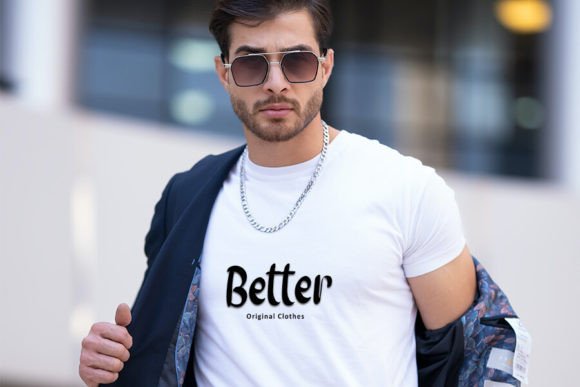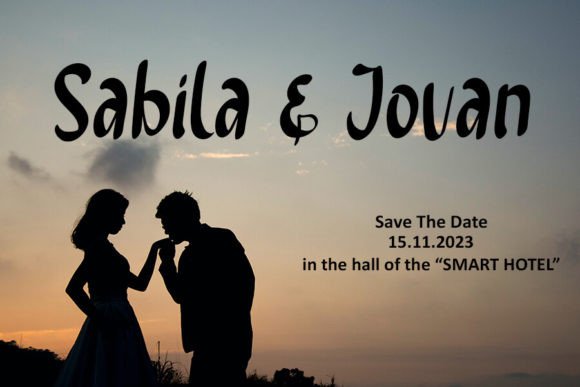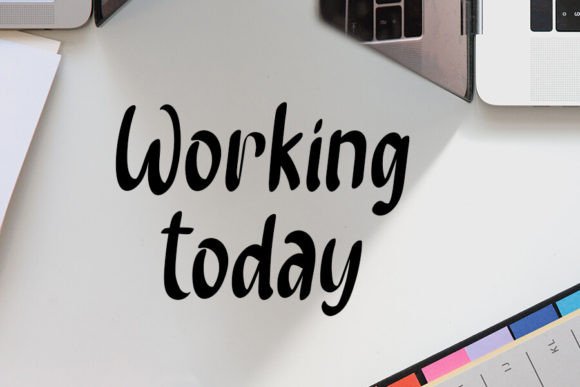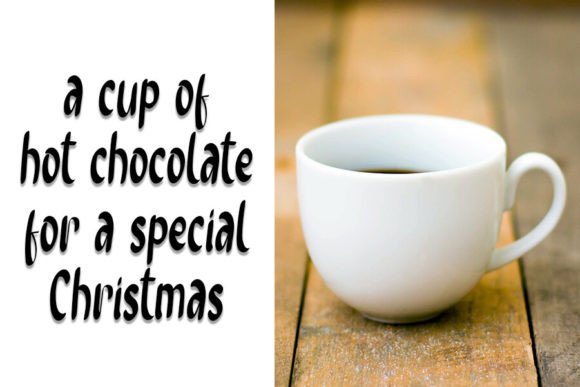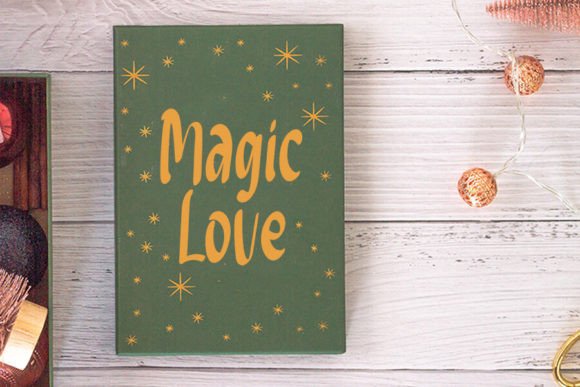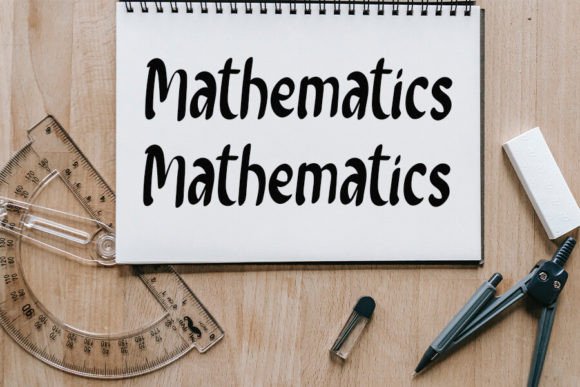
Introducing the Grinch Font: Elevate Your Designs with a Timeless Classic
In the world of typography, fonts play a crucial role in conveying the tone and personality of a design. For designers and crafters looking to add a touch of elegance and sophistication to their projects, the Grinch Font is an excellent choice. This stylish handwritten font boasts a contemporary atmosphere and impeccable form, making it perfect for a wide range of applications.
Inspired by Timeless Classic Calligraphy
The Grinch Font draws inspiration from traditional calligraphy, with a modern twist. Its unique blend of classic and contemporary elements creates a distinctive look that is both refined and stylish. The font’s design is characterized by balanced and varied strokes, which are neither too thin nor too thick. This careful balance ensures that the Grinch Font is versatile and can be used in various design contexts.
Key Features of the Grinch Font
- Balanced and Varied Strokes: The Grinch Font features strokes that are carefully crafted to be neither too thin nor too thick, creating a harmonious and visually appealing effect.
- Contemporary Atmosphere: Despite being inspired by classic calligraphy, the Grinch Font has a distinctly modern feel, making it perfect for designers looking to create fresh and contemporary designs.
- Impeccable Form: The font’s design is characterized by impeccable form, ensuring that it is both aesthetically pleasing and highly legible.
- Versatile: The Grinch Font is suitable for a wide range of applications, from branding and advertising to packaging and digital design.
Use Cases for the Grinch Font
The Grinch Font is an incredibly versatile typeface that can be used in various design contexts. Here are a few examples:
- Branding and Logo Design: The Grinch Font’s unique blend of classic and modern elements makes it an excellent choice for branding and logo design.
- Advertising and Marketing: The font’s elegant and sophisticated appearance makes it perfect for use in advertising and marketing materials.
- Packaging Design: The Grinch Font can add a touch of elegance and refinement to packaging design, making products stand out on store shelves.
- Digital Design: The font’s legibility and versatility make it an excellent choice for digital design, including websites, social media graphics, and more.
Why Choose the Grinch Font?
With so many fonts available, why choose the Grinch Font? Here are a few compelling reasons:
- Unique and Distinctive: The Grinch Font’s blend of classic and modern elements makes it a unique and distinctive typeface that can help designers create standout designs.
- Highly Legible: The font’s impeccable form and balanced strokes ensure that it is highly legible, even at small sizes.
- Versatile: The Grinch Font can be used in a wide range of applications, making it an excellent addition to any designer’s toolkit.
In conclusion, the Grinch Font is an exceptional typeface that offers a unique blend of classic and modern elements. Its balanced and varied strokes, contemporary atmosphere, and impeccable form make it an excellent choice for designers and crafters looking to elevate their designs. With its versatility and legibility, the Grinch Font is sure to become a go-to typeface for a wide range of applications.